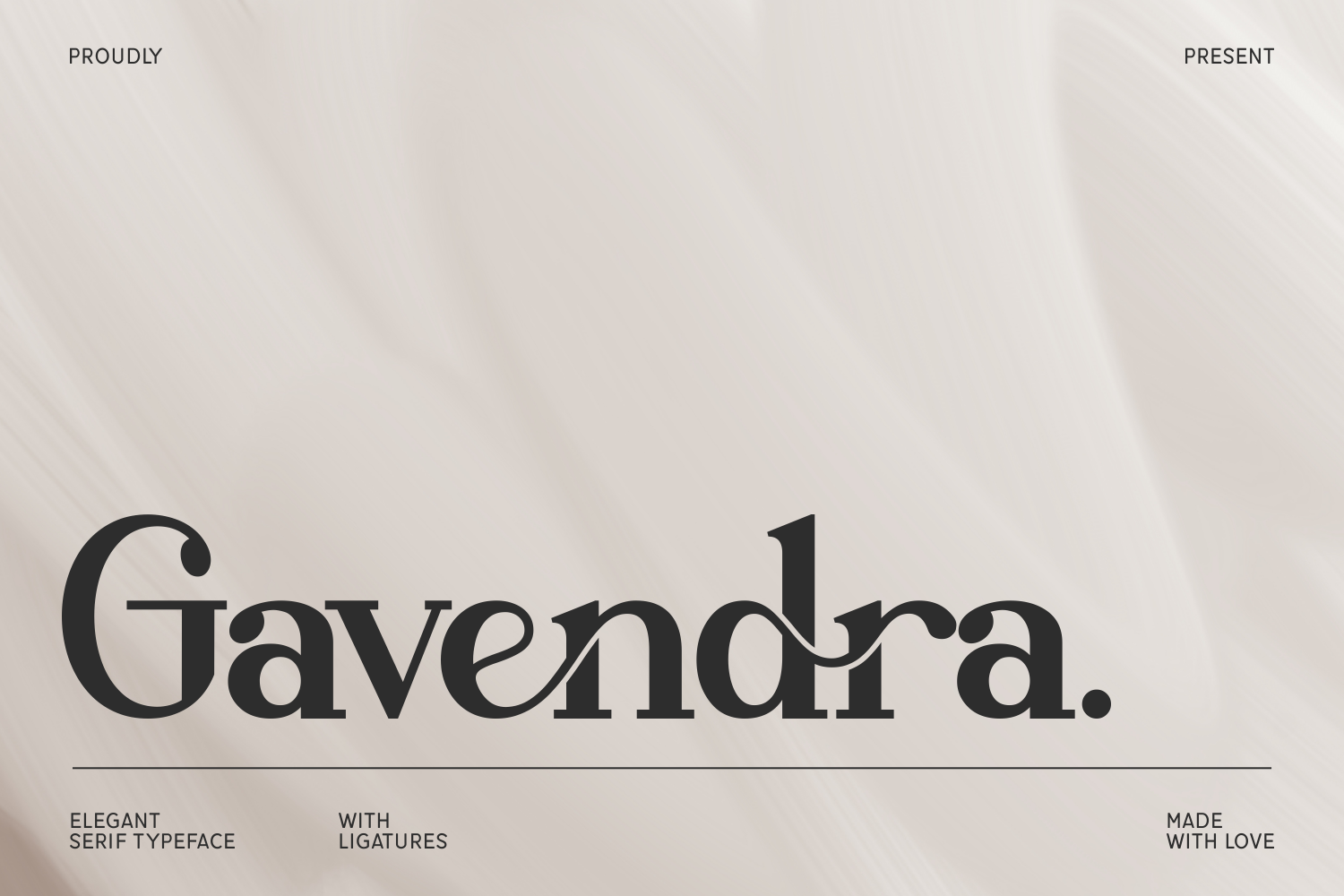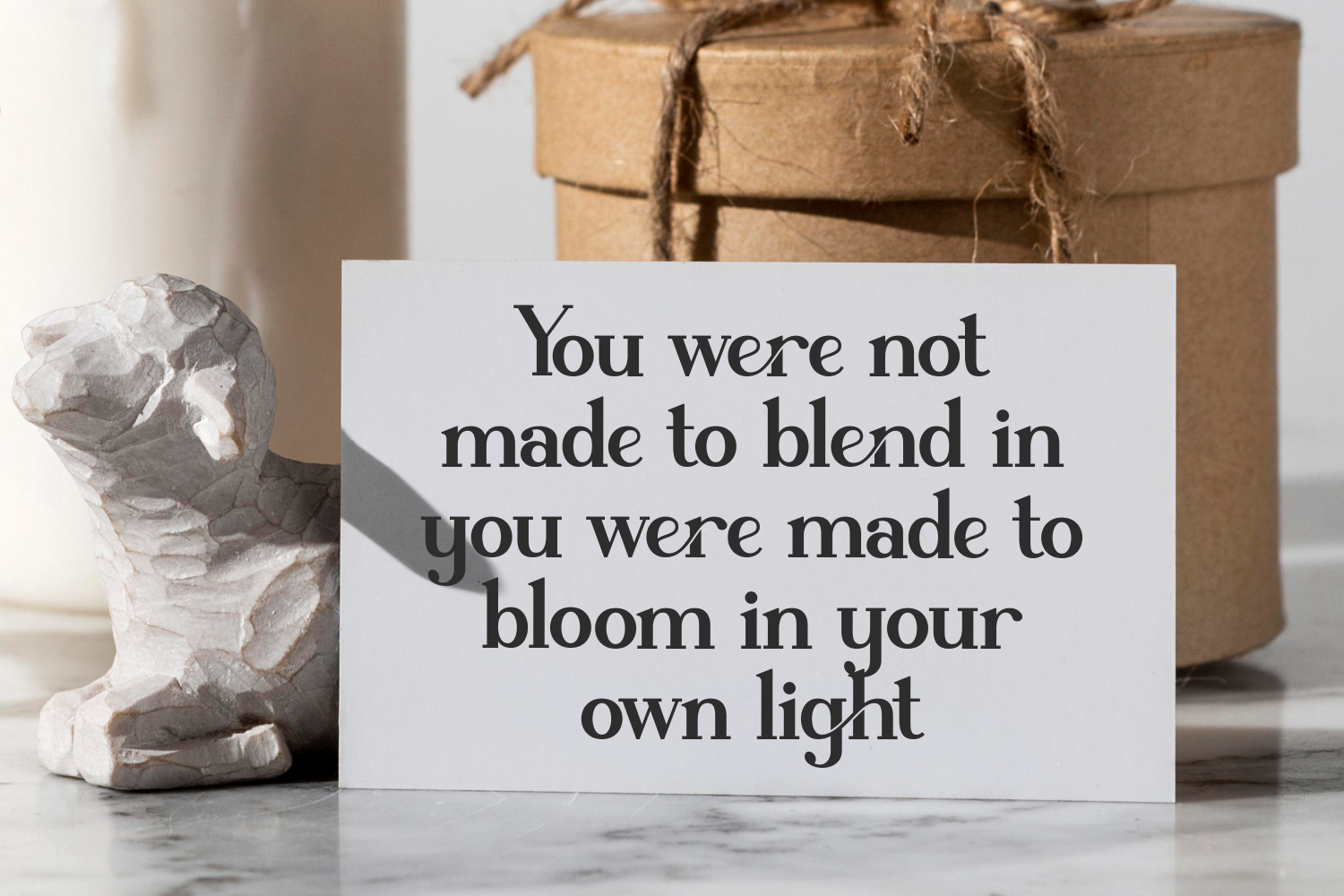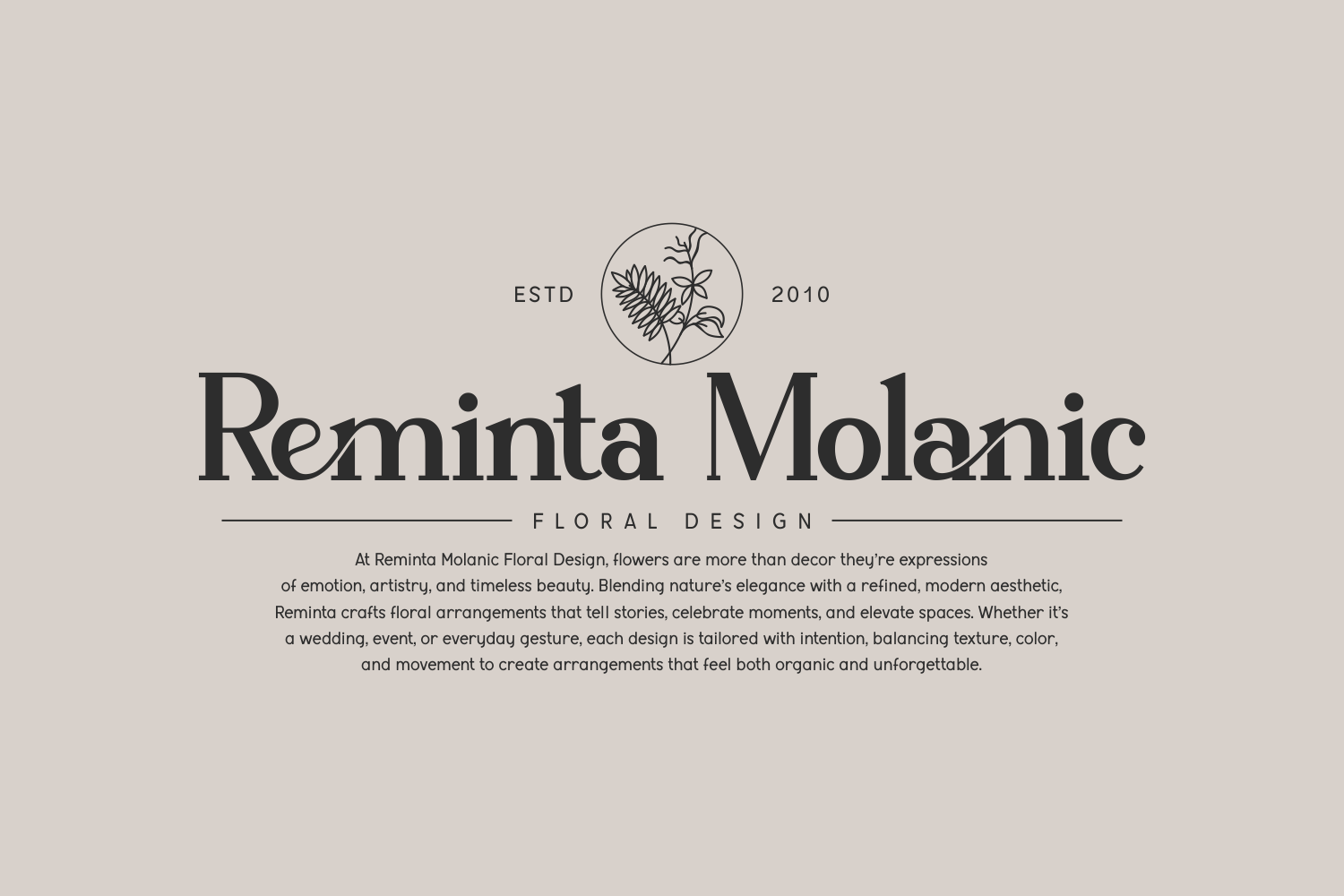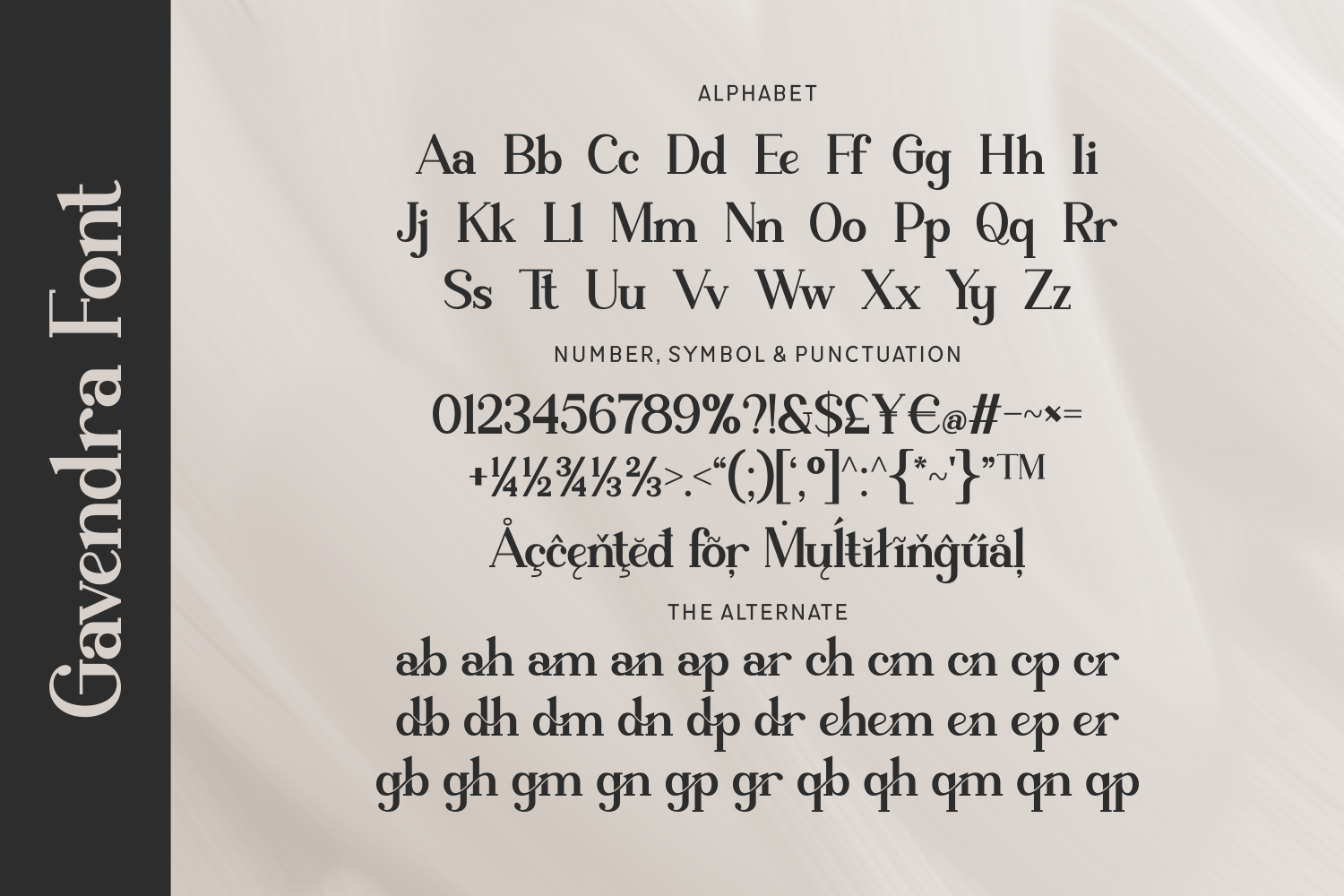
Gavendra is a refined serif typeface that blends classic form with graceful modern ligatures. Its delicate curves and elegant swashes add a high-end, contemporary touch to any design, while maintaining timeless readability. With multilingual support and thoughtfully crafted letter pairs, this font is your go-to for sophisticated, expressive visuals.